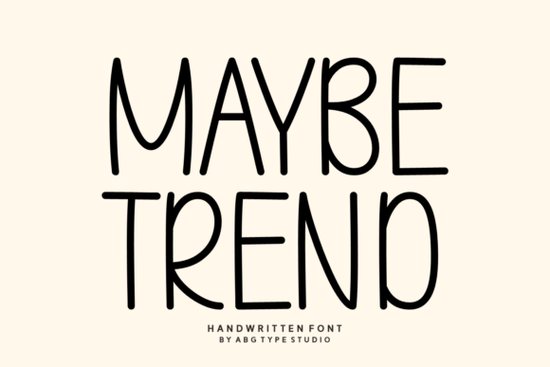
Finding the right typeface for a school project or a cute sticker sheet can take hours of scrolling. The Maybe Trend Font solves this by offering a highly adaptable sans serif with a soft, handwritten feel. It bridges the gap between neat organization and playful design, making it a practical choice for teachers planning classroom materials, crafters cutting vinyl decals, and small business owners designing product packaging.
What projects work best with a playful sans serif?
When you need text that feels approachable but remains easy to read, a slightly informal sans serif does the job perfectly. This type of lettering shines in educational materials, student planners, and kids' apparel. If you are making sublimation tumblers or scrapbooking layouts, the gentle curves keep the design friendly without looking messy. For those who prefer a more structured look for their family newsletters, browsing other options like this clean family-friendly typeface might also give you some good layout ideas.
Which specific styles are included in the bundle?
A good font bundle gives you options so you do not have to buy five different typefaces for one project. This pack covers several distinct moods:
- Handwritten and Kids: Soft, rounded edges that look like neat notebook doodles.
- Coquette and Whimsical: Delicate, slightly decorative letters perfect for boutique branding or greeting cards.
- Minimalist and Tidy: Clean, modern lines suited for packaging labels and planner inserts.
- Monoline and Funky: Even stroke widths that cut perfectly on vinyl and look great on tote bags.
How do you pair this typeface with other fonts?
Mixing fonts can be tricky, but the rule of thumb is to contrast a playful display font with a simple, highly legible body font. Use the whimsical styles for your main titles or large quotes, and stick to a basic, neutral sans serif for the smaller paragraph text. Avoid using two highly decorative fonts together, as this makes the text difficult to read and clutters the overall layout.